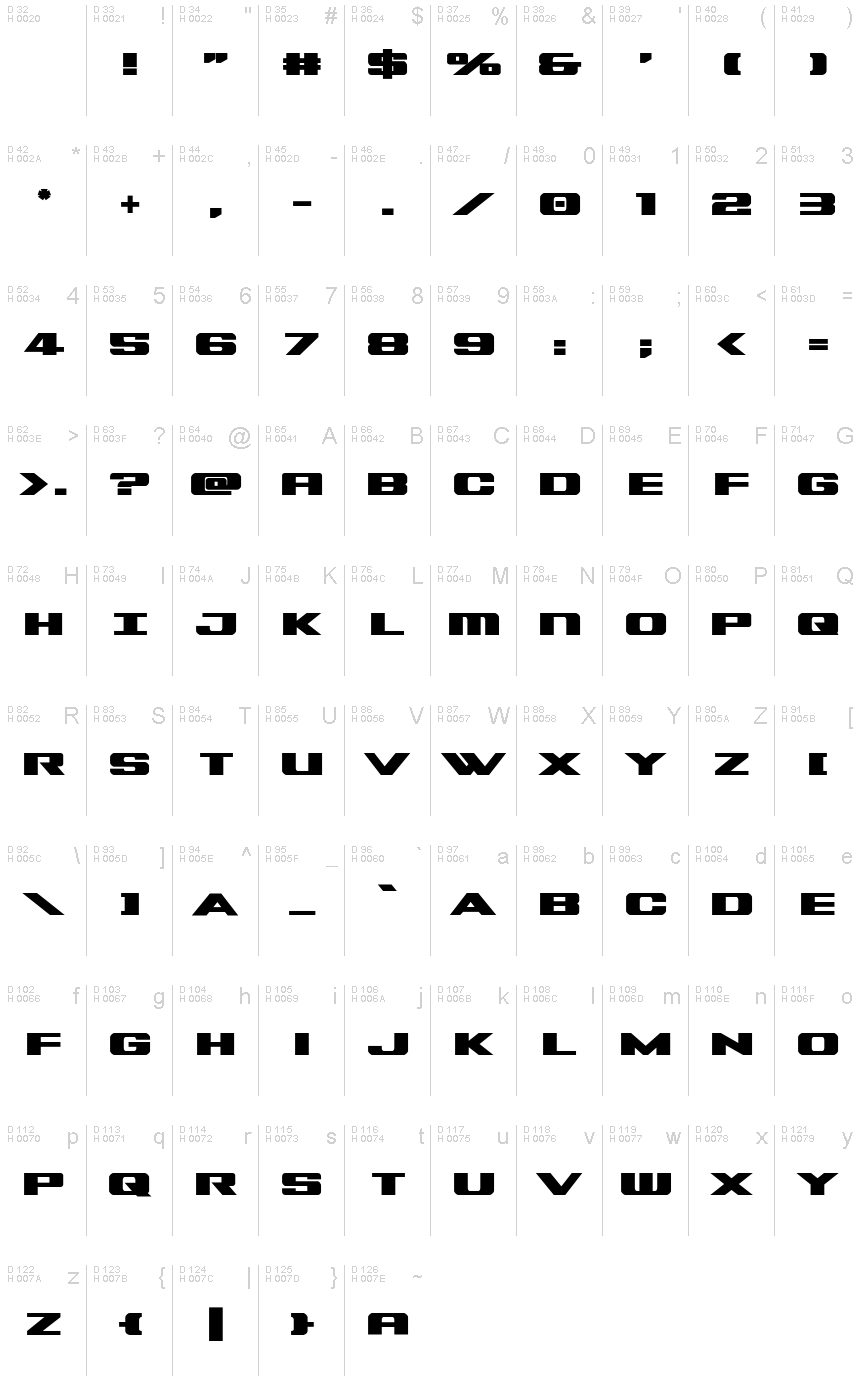
Tigershark Bold, created in 2024 by Iconian Fonts, is a free modern display font with a forceful futuristic build. Broad capitals, squared curves, and sliced joins create a dense silhouette punctuated by small machined cut-ins.
It can turn an esports logo into a fierce team emblem. The angular construction also fits game title cards, sports merchandise, and technology event graphics, where its speed-driven forms suit high-impact themes. Its natural audience includes competitive gaming fans, motorsport followers, and science-fiction viewers.